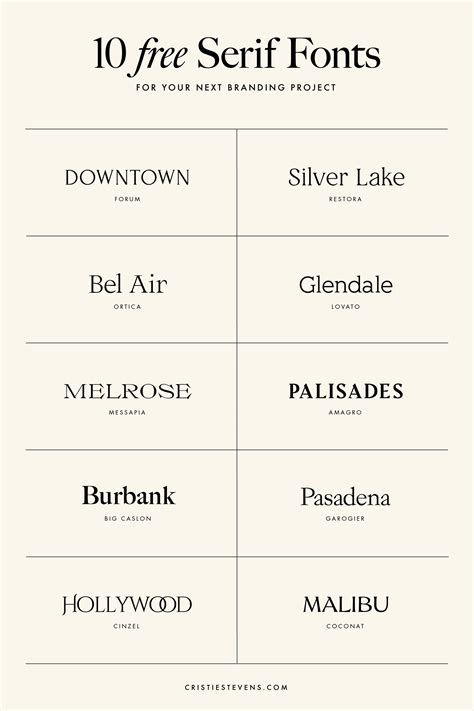
Top 10 Most Popular Serif Fonts of 2021 · Typewolf
Most Common Serif Fonts. Web the 10 best classic serif fonts for print projects. Times new roman cambria georgia garamond merriweather libre baskerville bodoni lora playfair display ramaraja century.
A classic dating from the 1750s, baskerville and new baskerville serif fonts with their many variations work well for both. Web the best serif fonts of 2024 1. Times new roman cambria georgia garamond merriweather libre baskerville bodoni lora playfair display ramaraja century. Kinta is a serif typeface that uses white space to. Web some serif fonts include: Modern serif fonts like ringift strike a balance between the stern look of sharp serifs and the elegant flow. Web the 10 best classic serif fonts for print projects. Serif sans serif script decorative
Serif sans serif script decorative Web the 10 best classic serif fonts for print projects. Serif sans serif script decorative Web some serif fonts include: Kinta is a serif typeface that uses white space to. Times new roman cambria georgia garamond merriweather libre baskerville bodoni lora playfair display ramaraja century. Web the best serif fonts of 2024 1. A classic dating from the 1750s, baskerville and new baskerville serif fonts with their many variations work well for both. Modern serif fonts like ringift strike a balance between the stern look of sharp serifs and the elegant flow.